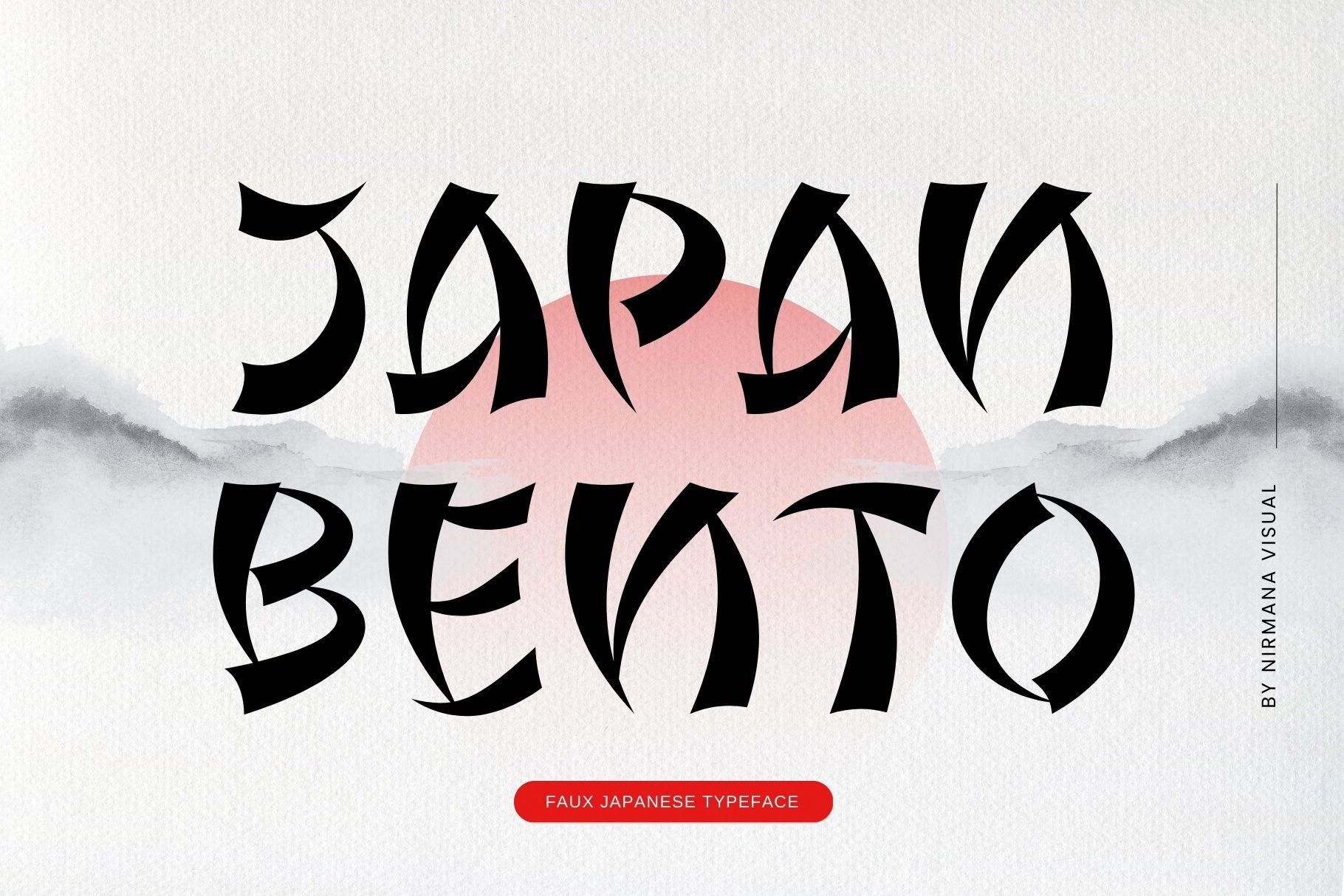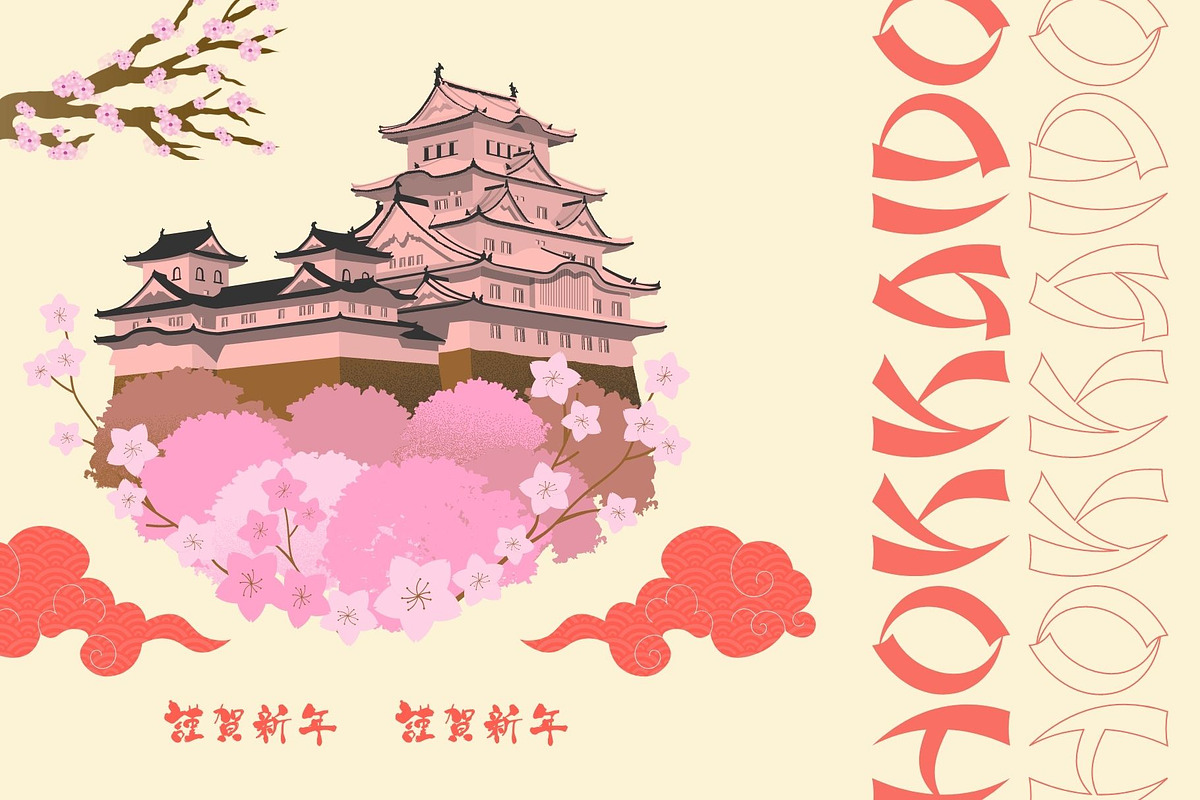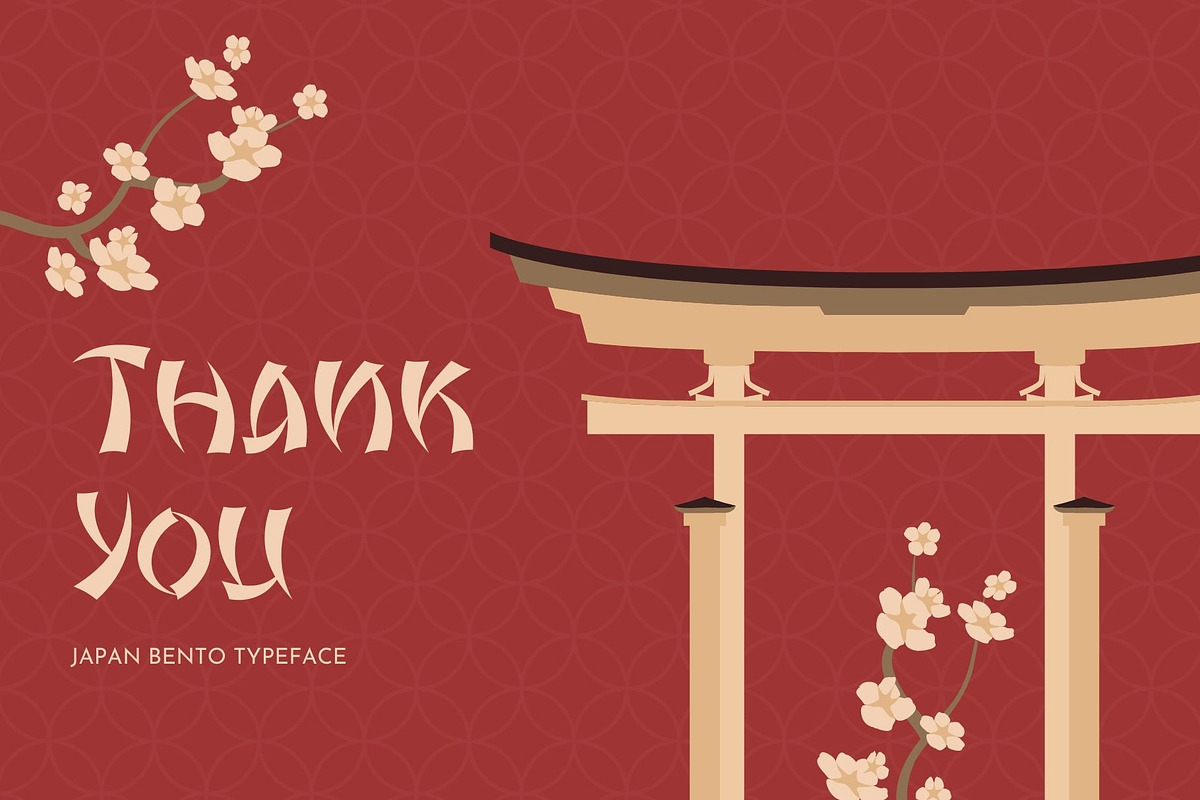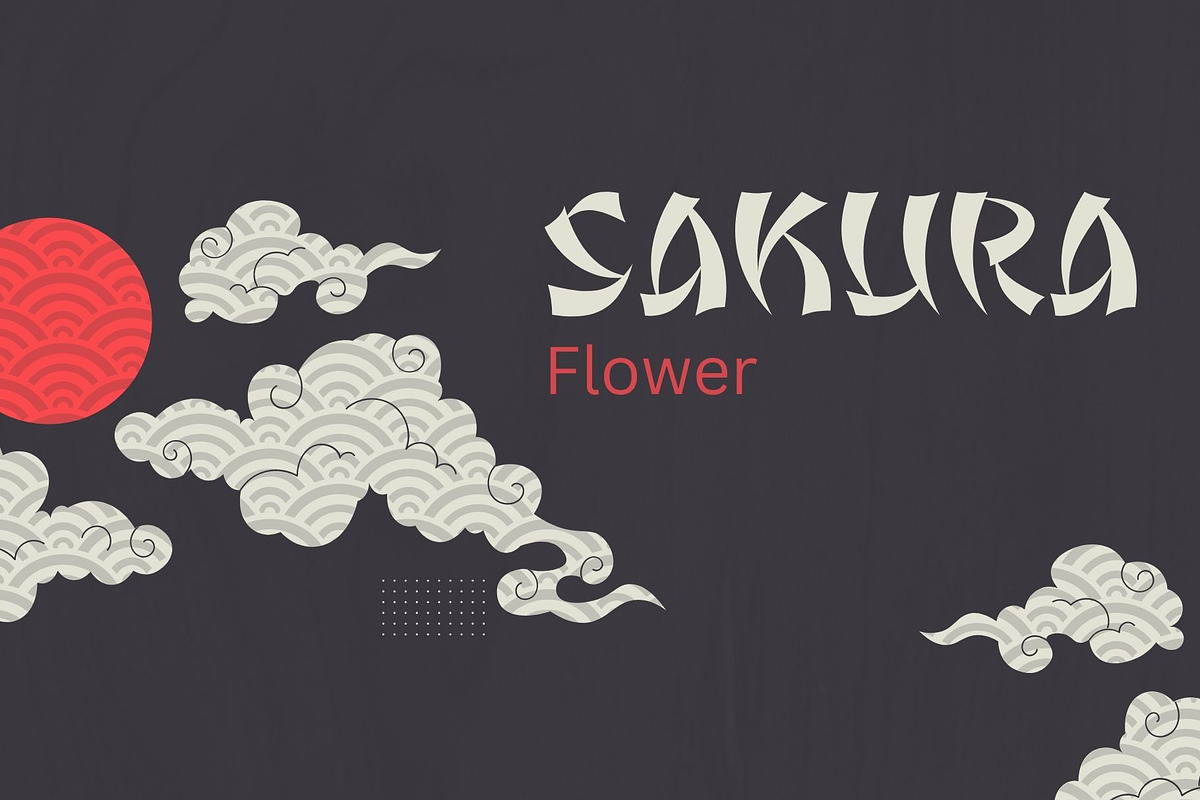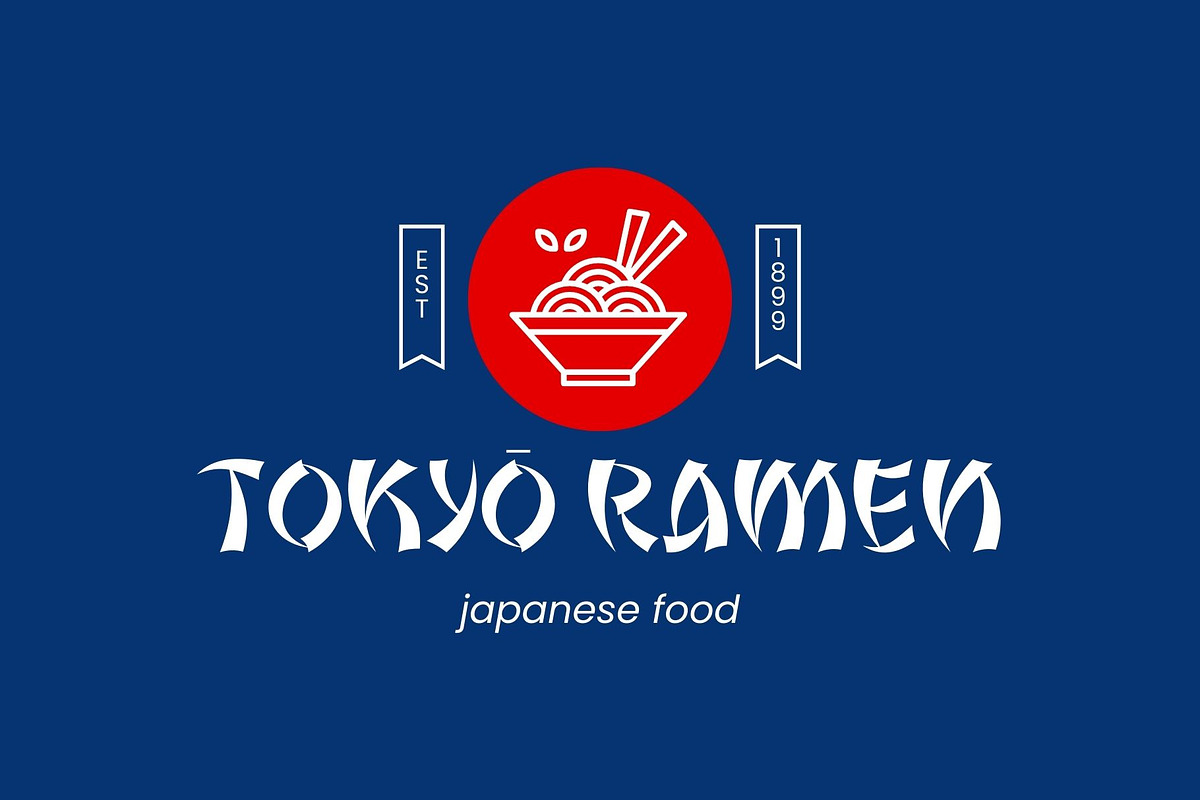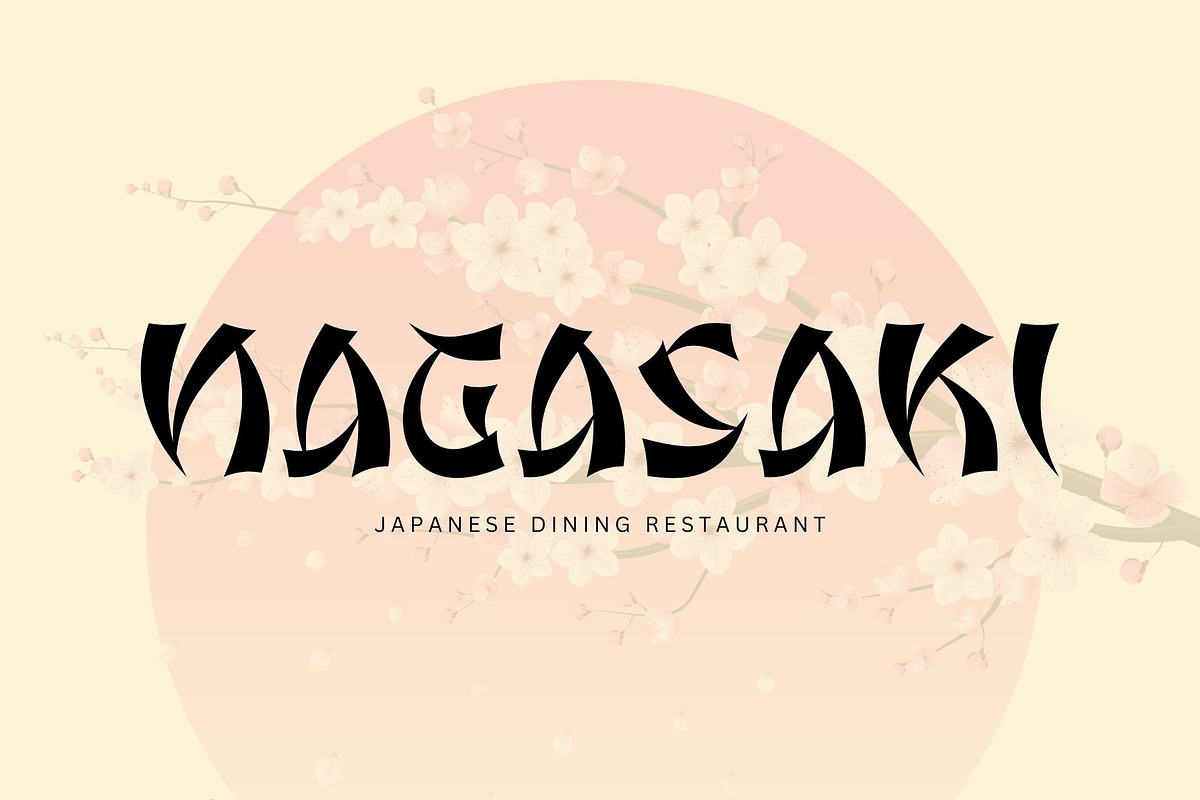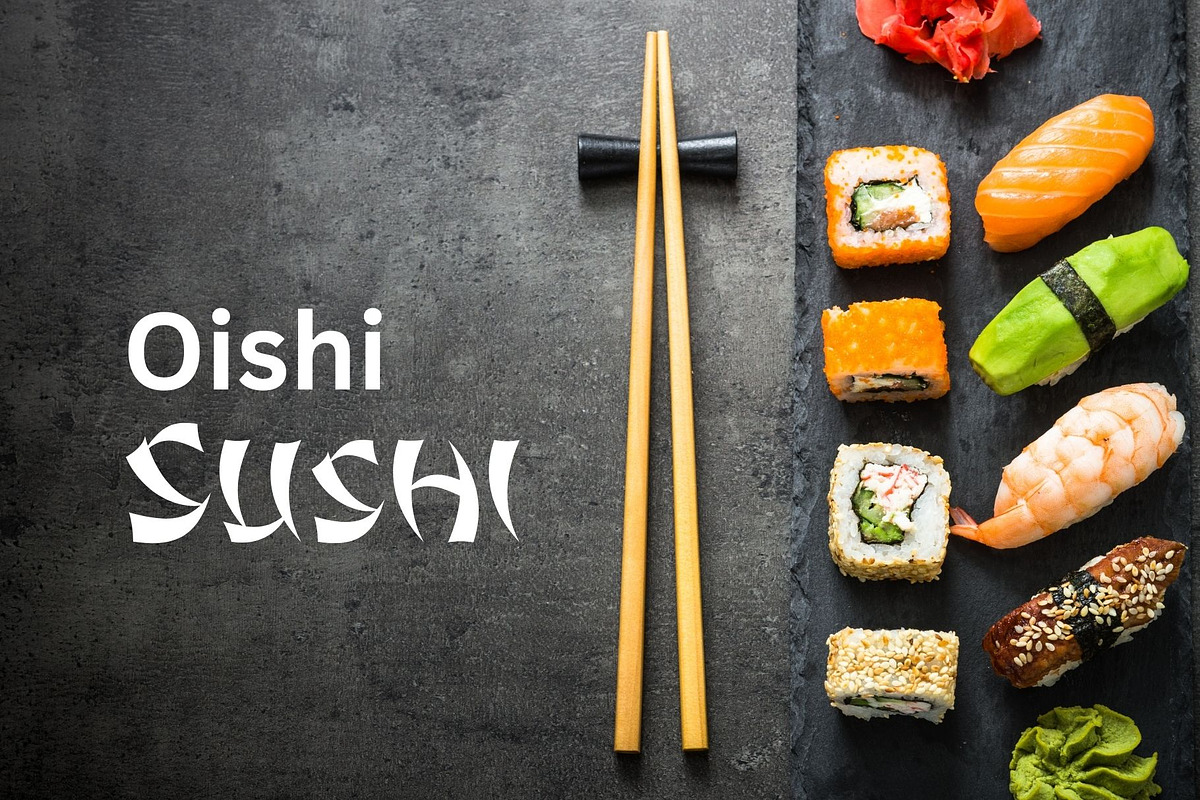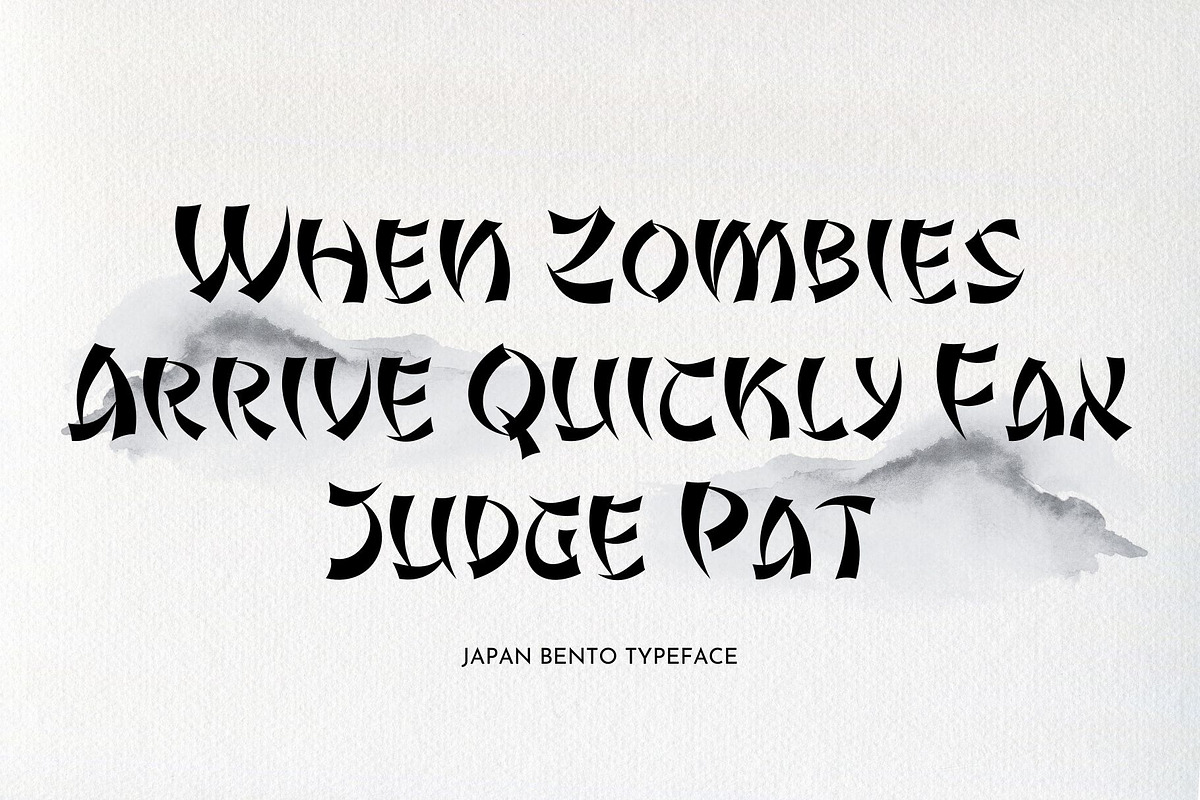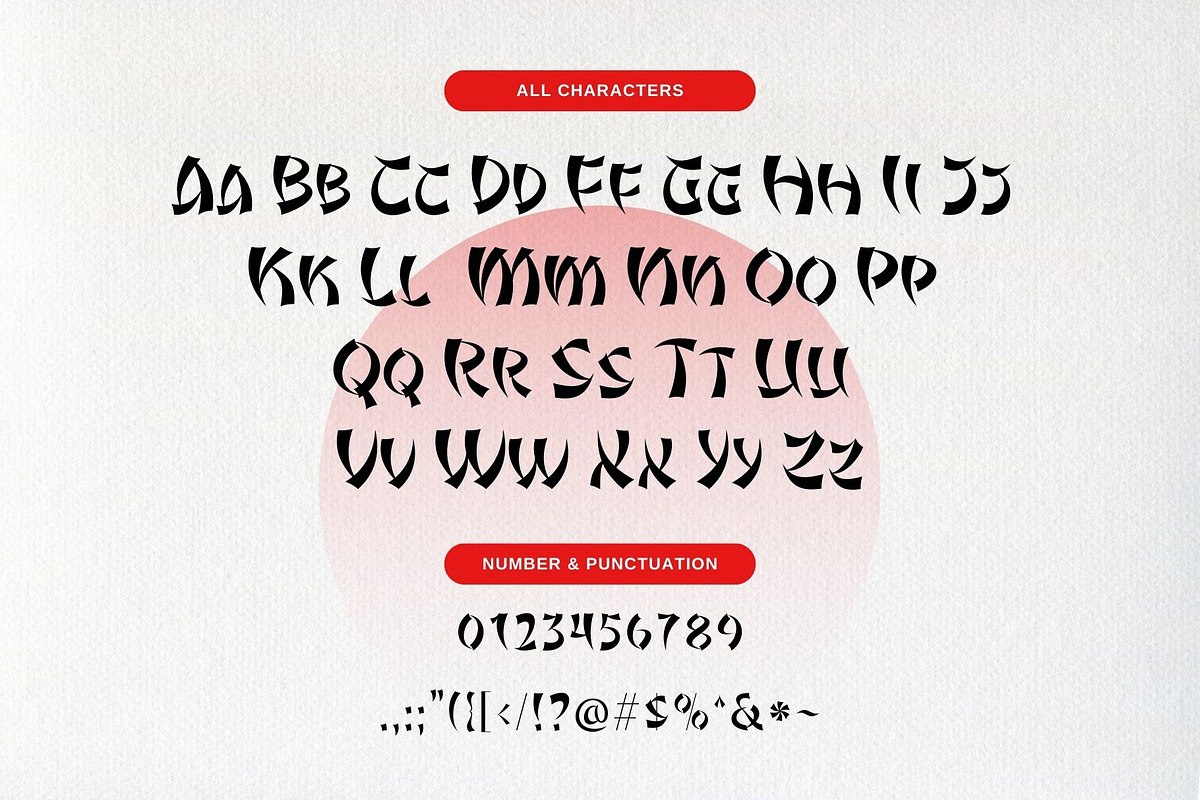
Japan Bento - Japanese Typeface
Japan Bento Inspired by Kanji Japanese Typography. Japan Bento offers beautiful typographic harmony for a diversity of design projects, including logos & branding, social media posts, advertisements & product designs.